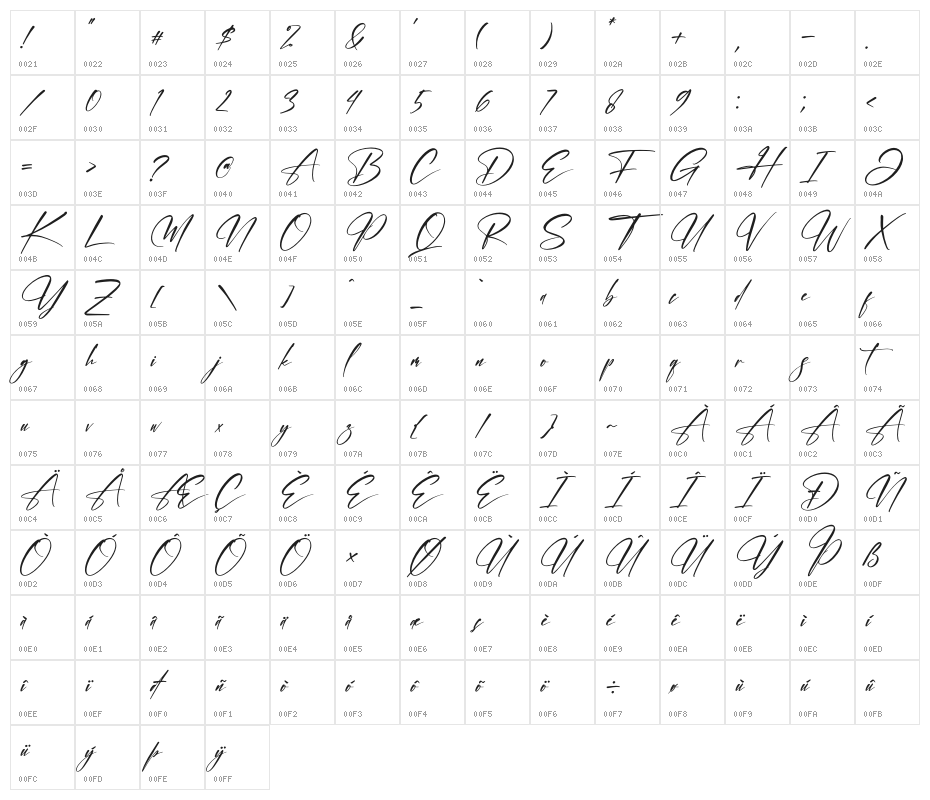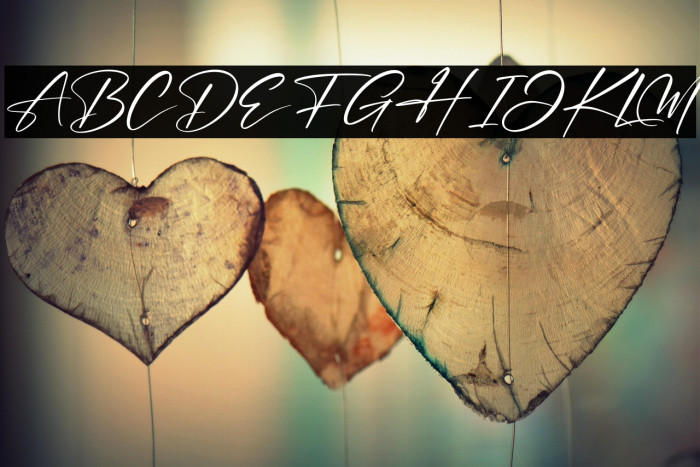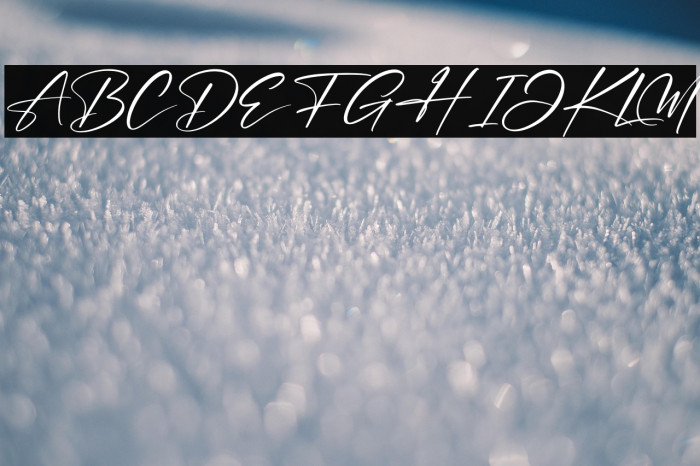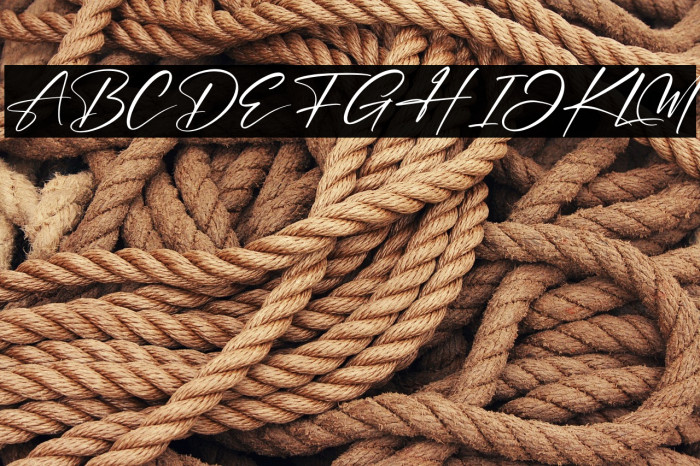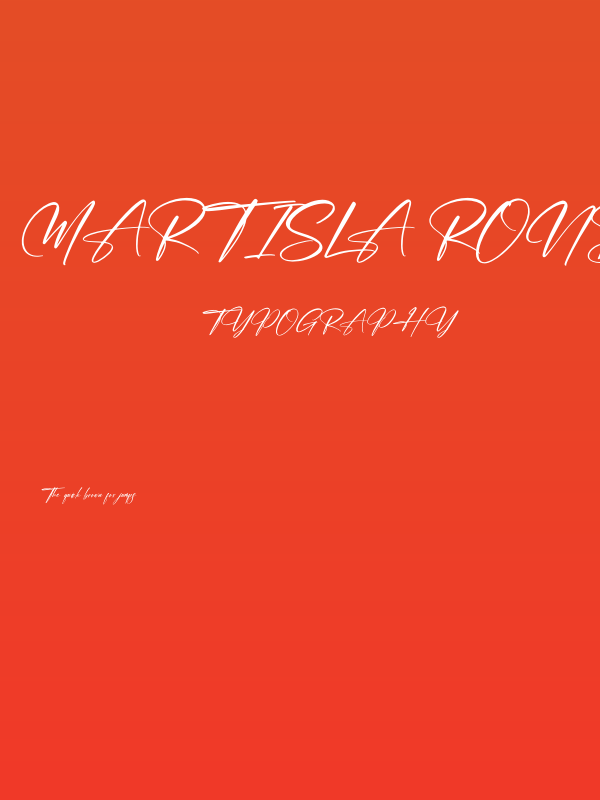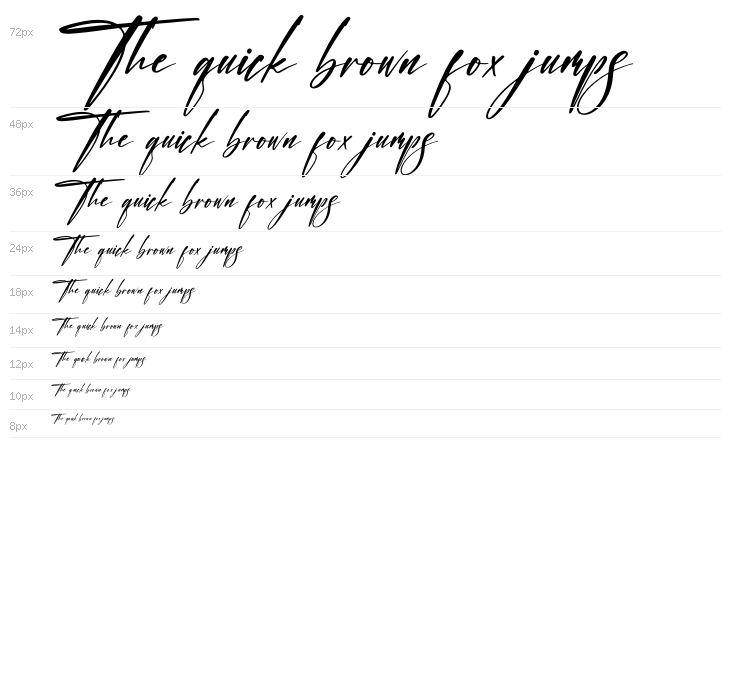
Martisla Rondela Font
Martisla Rondela Description
This font exudes a dynamic and elegant script style, characterized by its flowing, cursive letterforms that mimic the fluidity of handwriting. The uppercase letters are bold and sweeping, with dramatic flourishes that add a sense of movement and sophistication. The lowercase letters maintain a consistent style, with elongated ascenders and descenders that enhance the font's graceful appearance. The numerals are stylishly integrated, maintaining the overall cursive theme. Special characters are thoughtfully designed to complement the script style, ensuring a cohesive look across all text. This font is perfect for projects that require a touch of elegance and personal flair.
| Overall Style | Elegant, Decorative |
| Proposed Projects | Ideal for wedding invitations, greeting cards, branding, and elegant logo designs. |